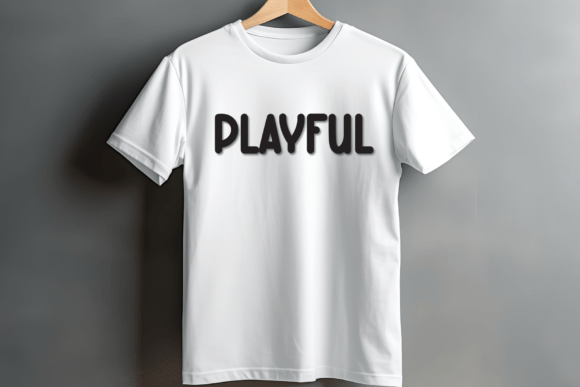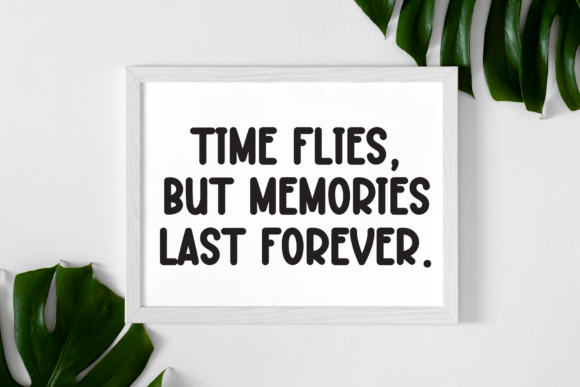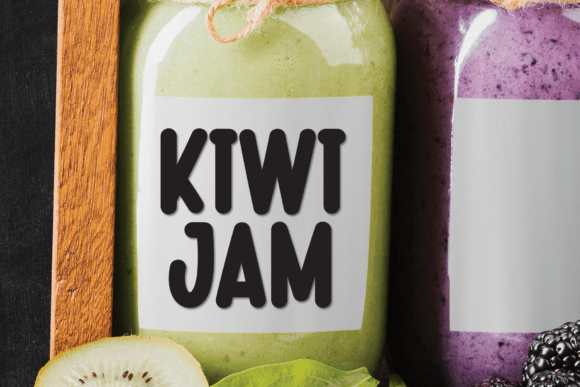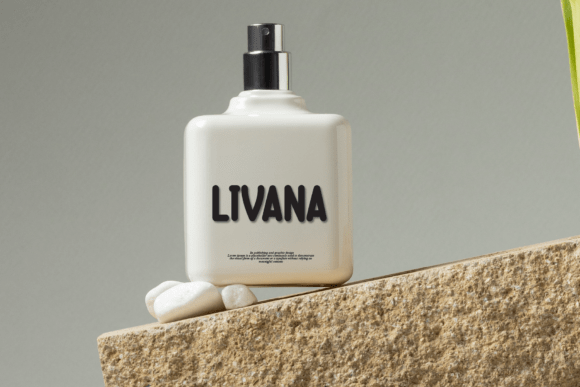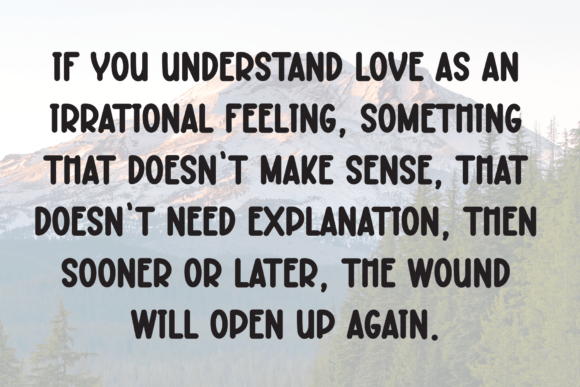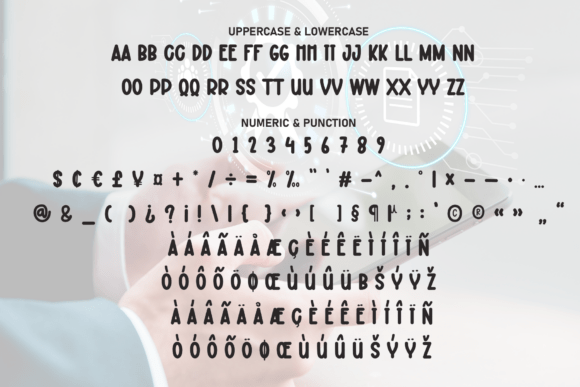
Introduction to Smart Digital Font
Smart Digital is a casual display font that brings a relaxed and playful vibe to any project.
Its bold, approachable letterforms make it perfect for headlines, posters, and branding The font’s easygoing style effortlessly captures a sense of fun and spontaneity, enhancing any creative work.